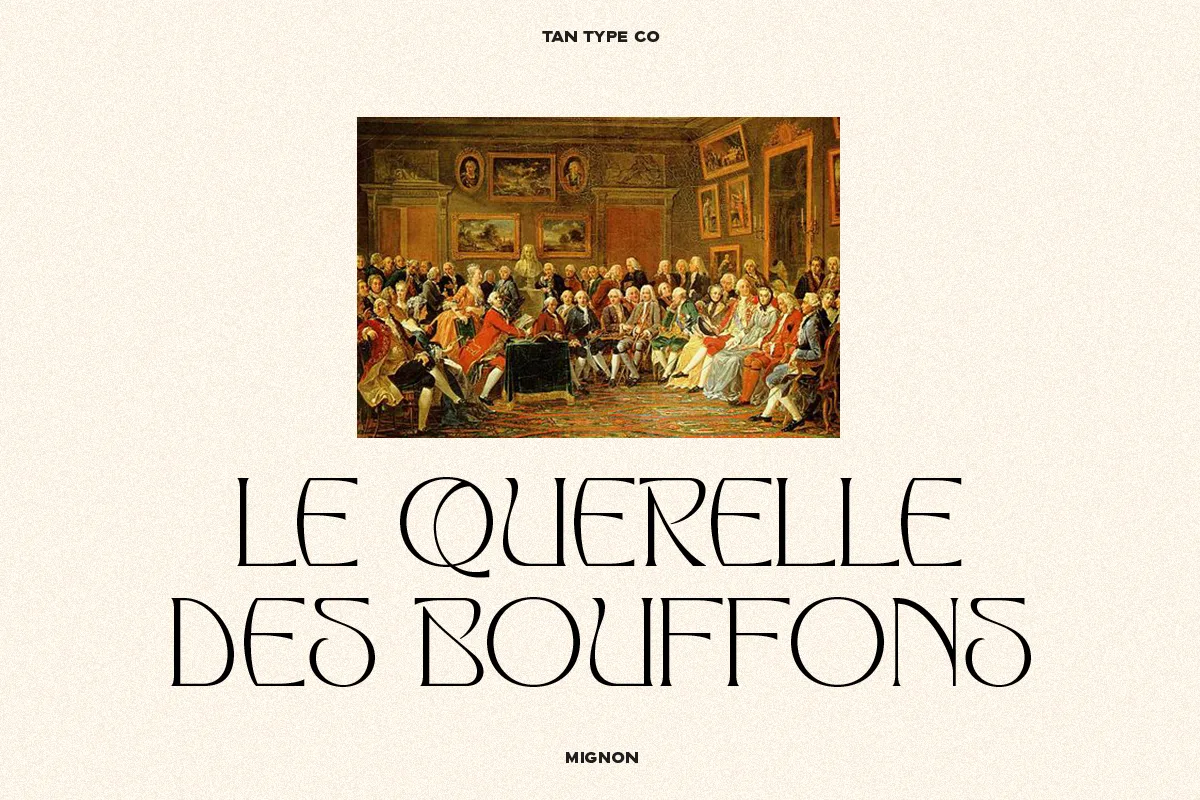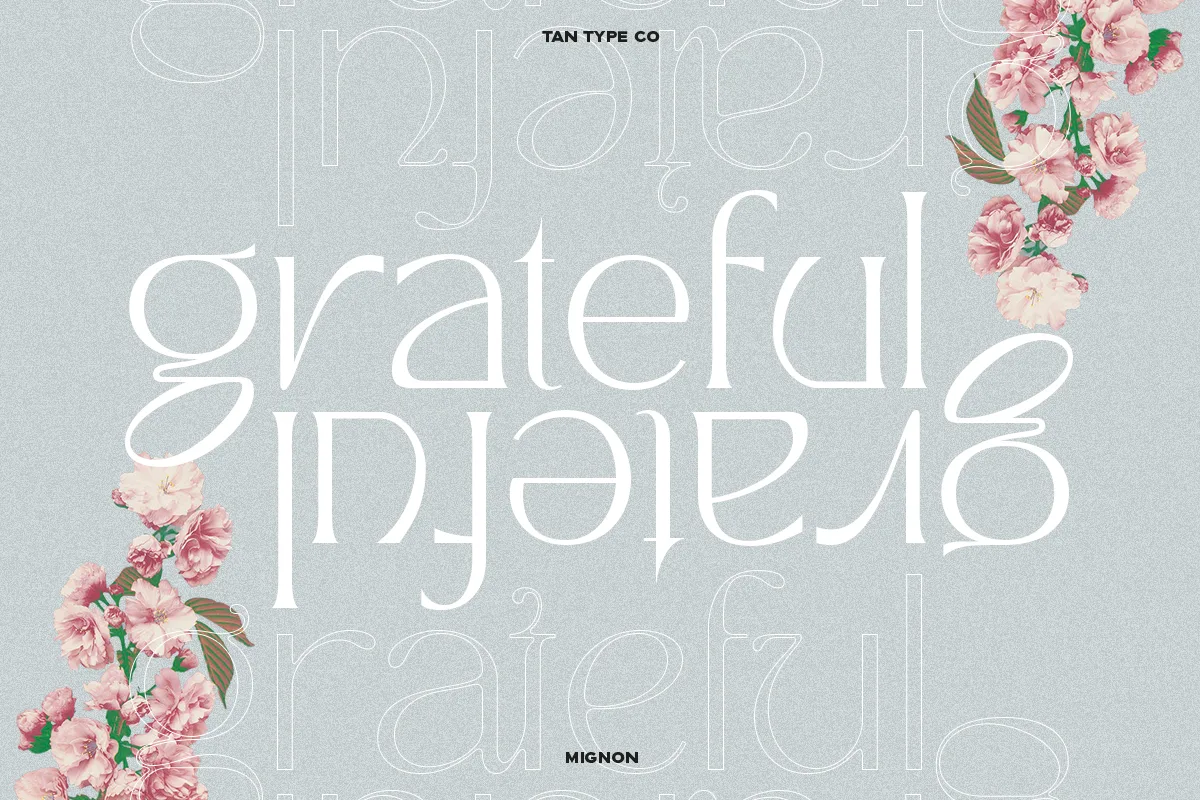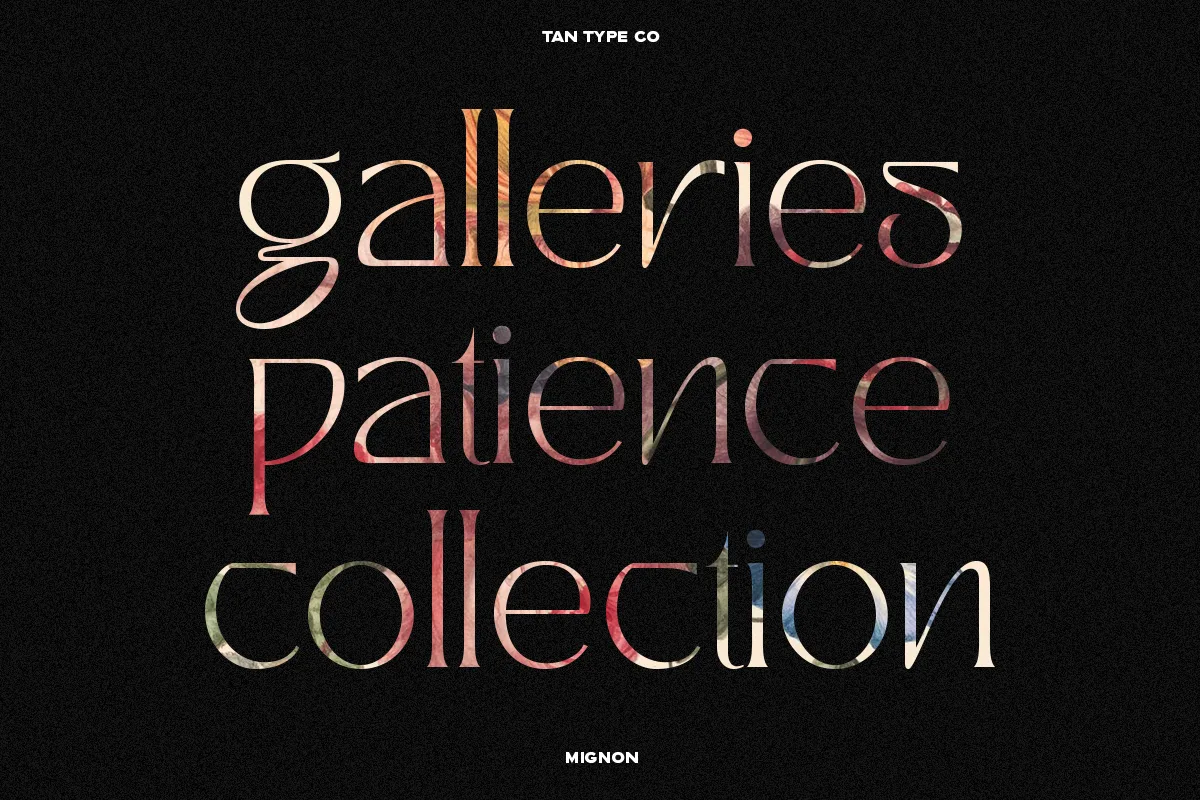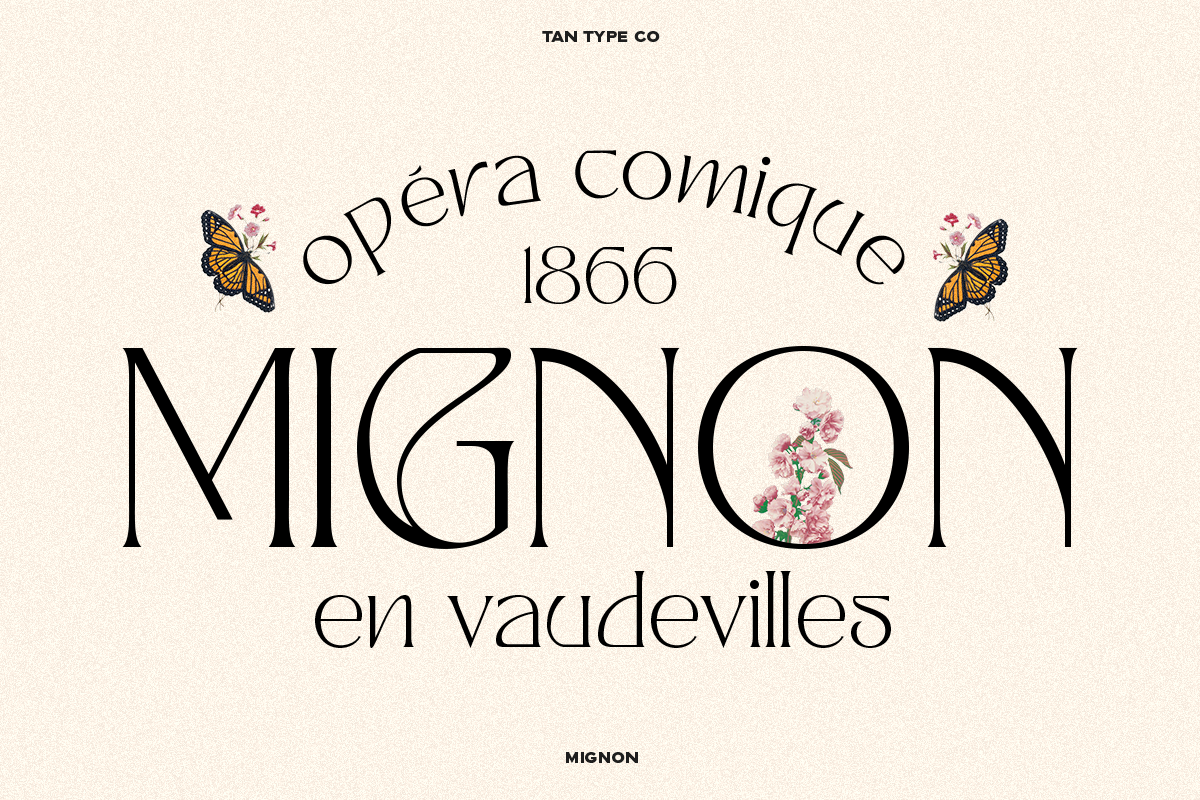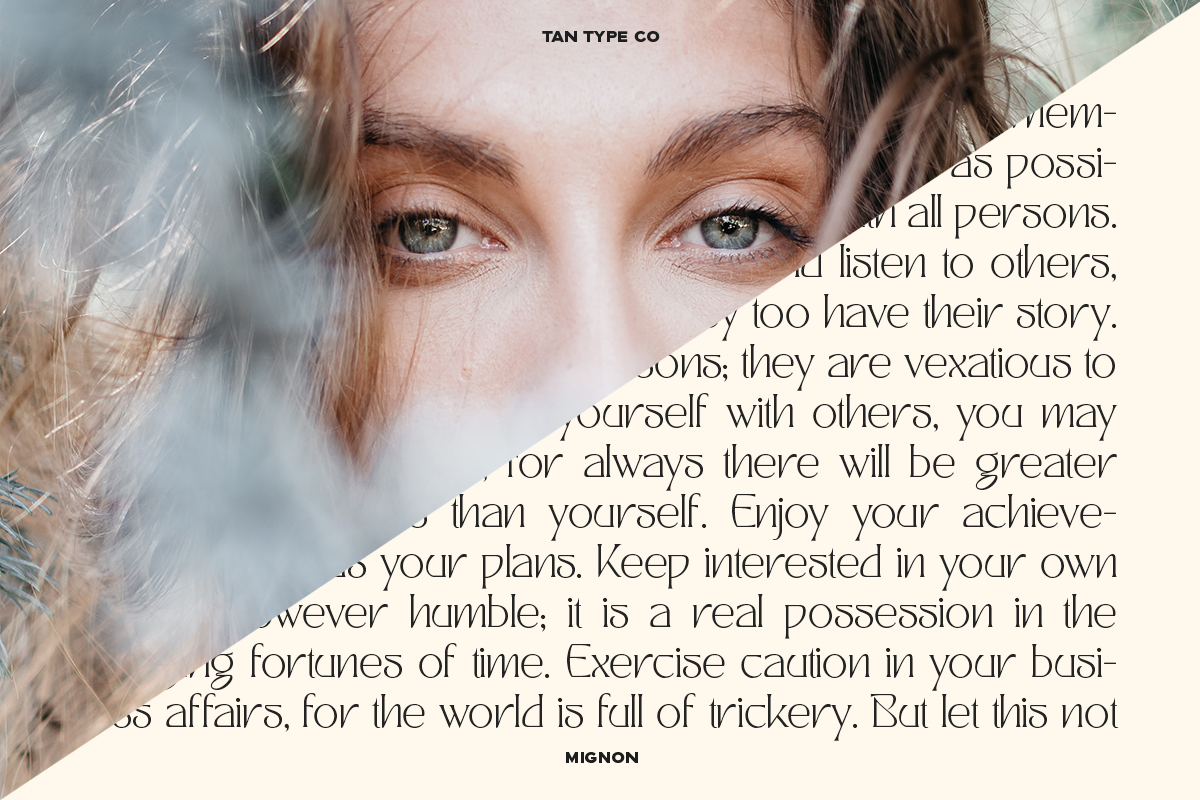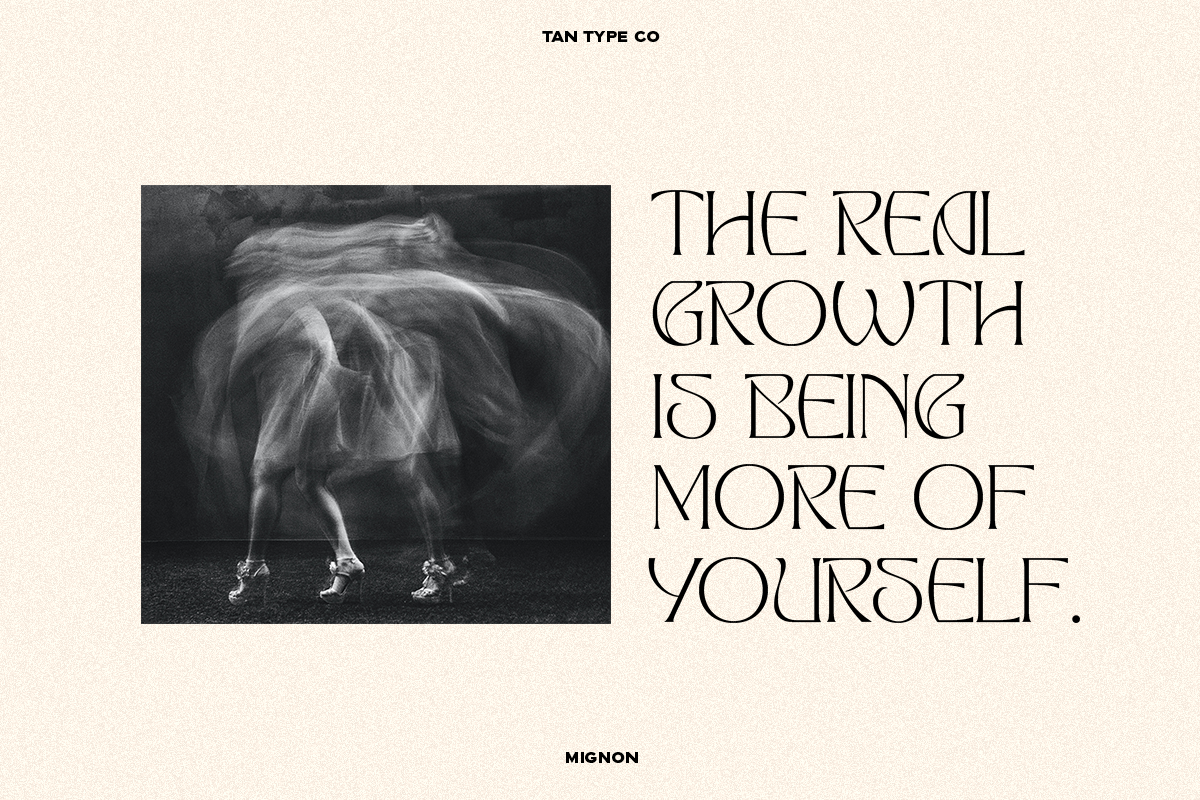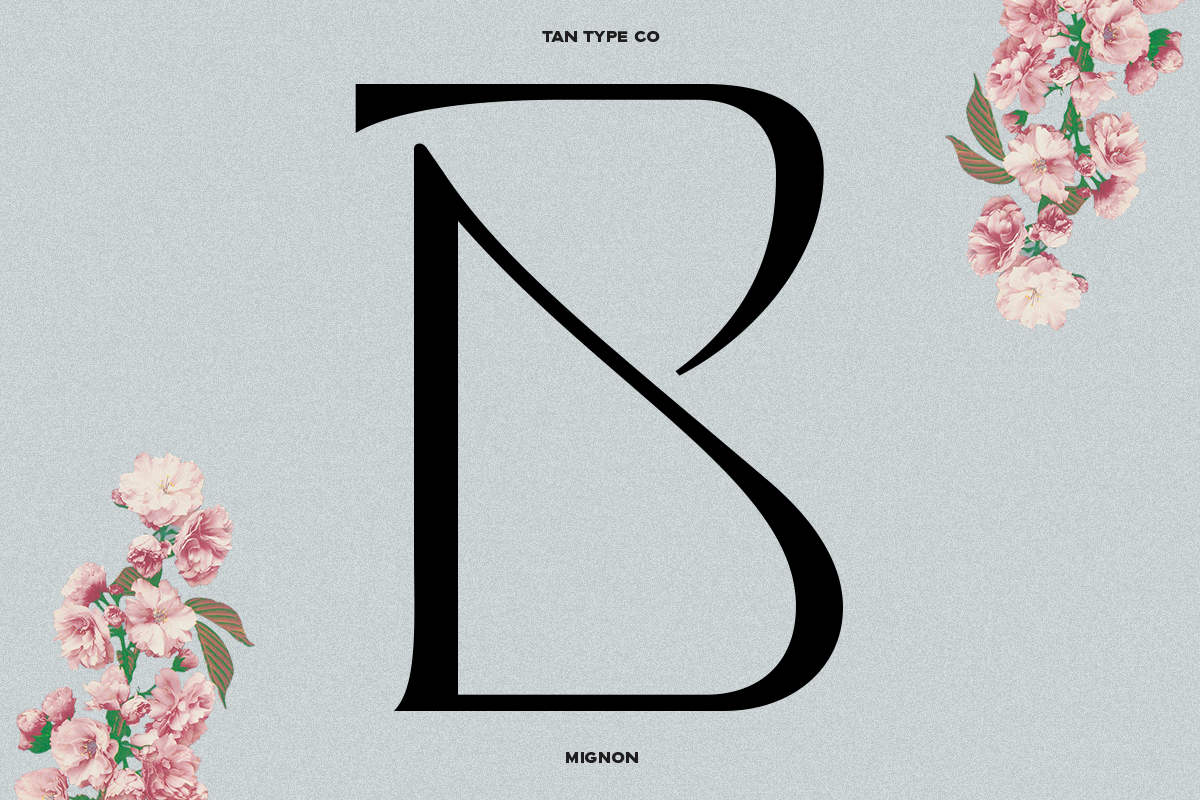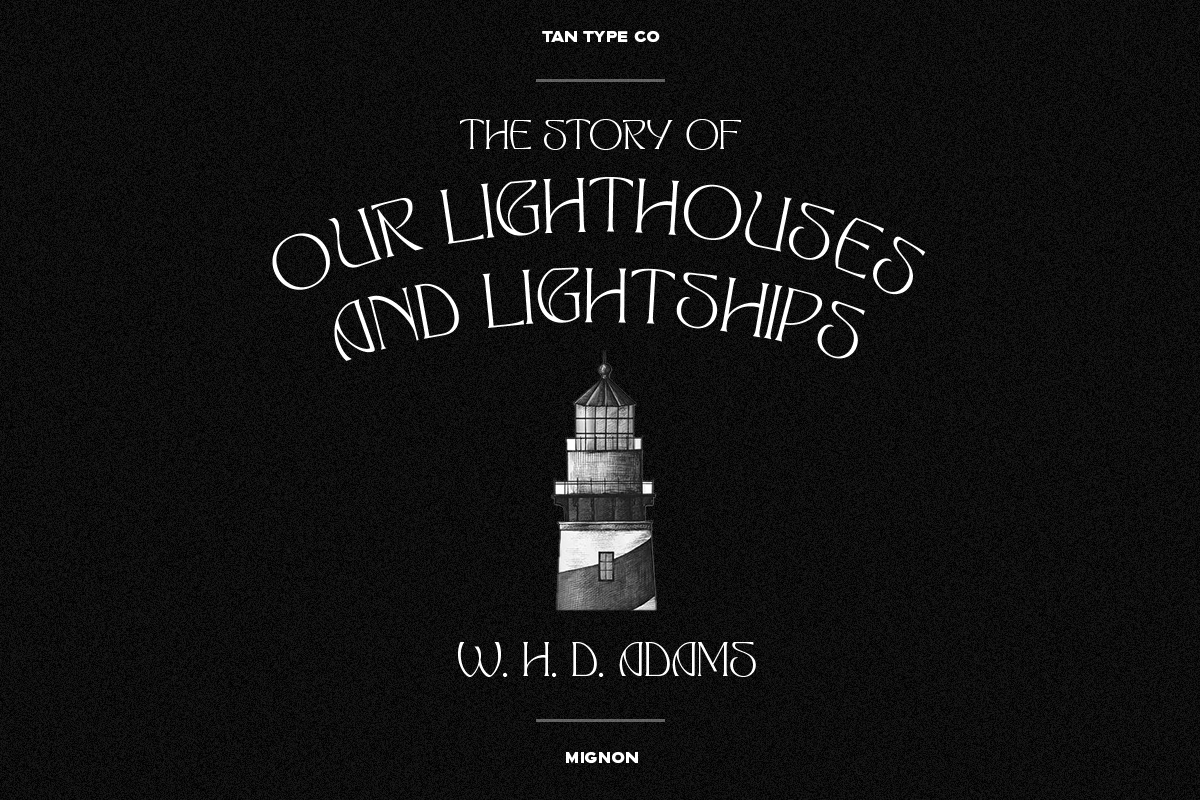
Tan – Mignon Font
Tan Mignon Font
Tan Mignon is a simple display typeface inspired by the art deco architectural shape. Perfect if you want something minimalistic with a twist.
Tan Mignon font preview — sample text
Tan Mignon font alphabet, numbers and glyphs
Tan Mignon font style preview